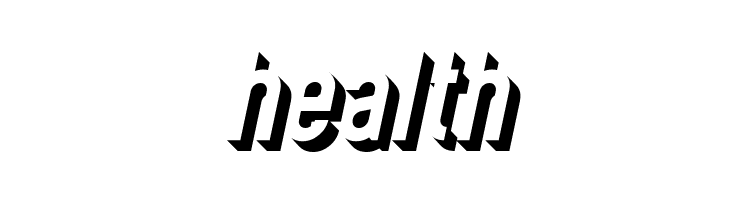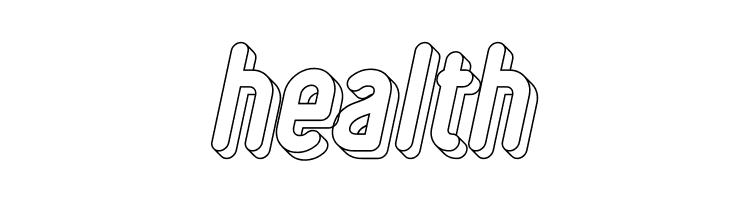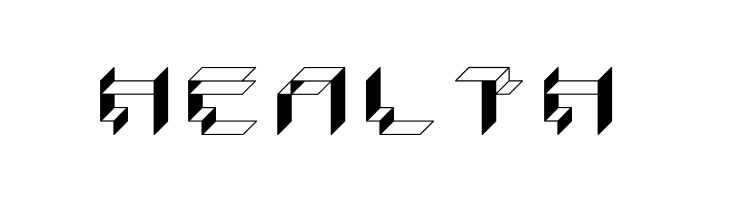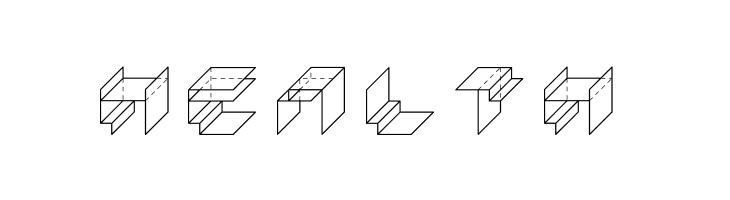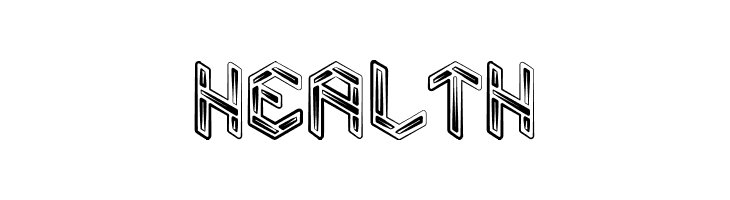
( Levi Szekeres - www.loremipsum.ro )
A bold, 3D italic font with a dynamic and impactful style.
( Levi Szekeres - www.loremipsum.ro )
A bold, 3D outline font with a playful and eye-catching design.
( Pisto Casero - Gilberto Moya Perona - www.pistocasero.com )
A 3D block-style font with a retro, pixelated aesthetic.
( Pisto Casero - Gilberto Moya Perona - www.pistocasero.com )
A bold, 3D geometric font with an origami-like design.
( Pisto Casero - Gilberto Moya Perona - www.pistocasero.com )
A 3D geometric font with a modern, playful design.
( Qkila - Quentin Aquila - www.creativefabrica.com/designer/qkila/ )
A bold, three-dimensional geometric font with a futuristic style.
( Vladimir Nikolic - www.coroflot.com/vladimirnikolic )
A bold, 3D gradient font with a vintage marquee style.
( Vladimir Nikolic - www.coroflot.com/vladimirnikolic )
A bold, 3D italic font with a dotted outline and shadow effect.
( Vladimir Nikolic - www.coroflot.com/vladimirnikolic )
A bold, 3D italic font with a filled style and shadow effect for dynamic designs.
( Vladimir Nikolic - www.coroflot.com/vladimirnikolic )
A bold, 3D marquee font with decorative bulb embellishments.